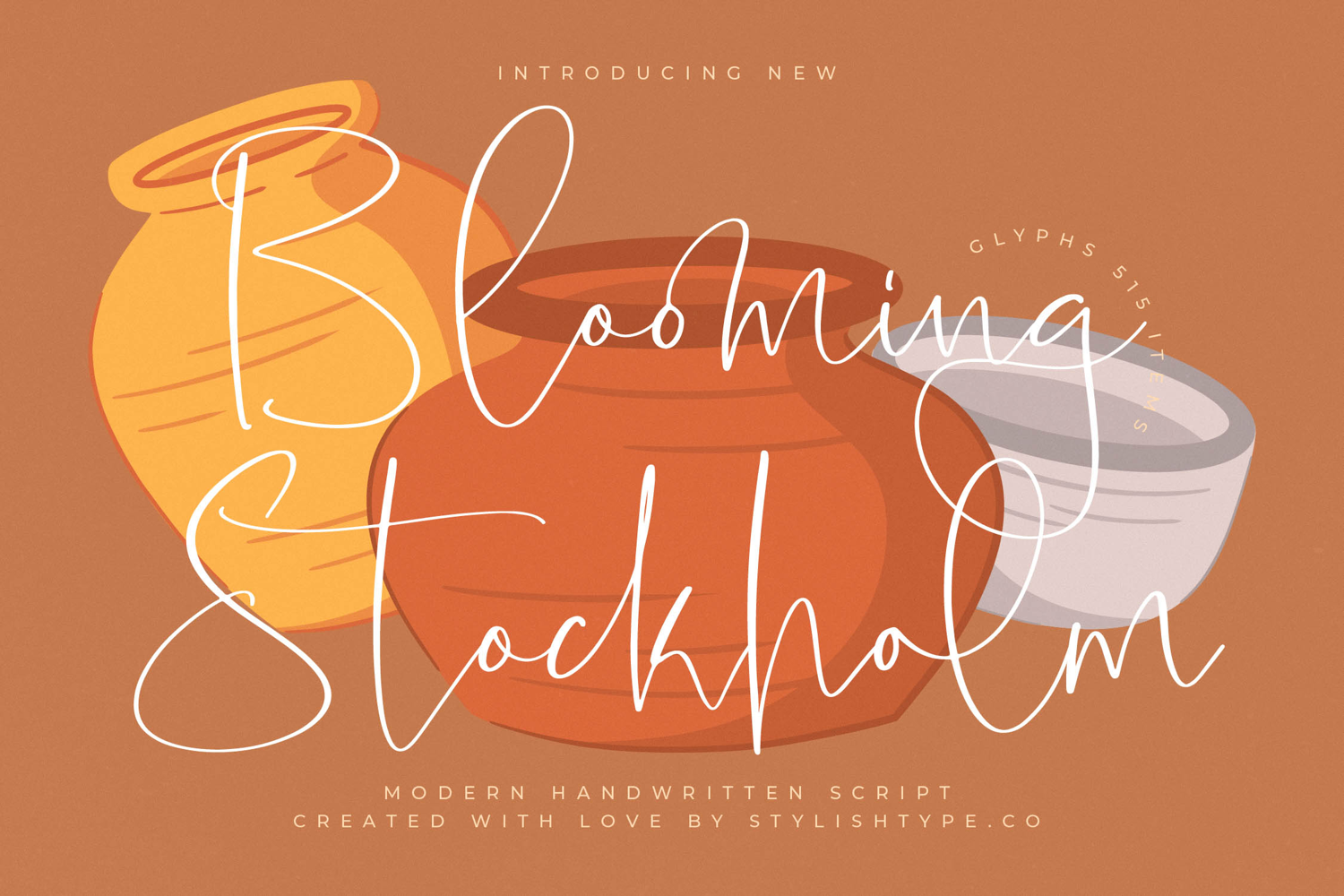
Blooming Stockholm - Modern Handwritten Script
is a modern handwritten script font designed with flowing strokes and elegant signature-style curves. Inspired by natural handwriting and contemporary calligraphy, this font brings a stylish and expressive look to modern typography.
The letterforms feature smooth curves and long sweeping strokes that create a graceful handwritten rhythm. Its organic flow gives the typography a soft and elegant appearance, making it ideal for modern creative projects and stylish design compositions.
Blooming Stockholm - Modern Handwritten Script
includes a large collection of glyphs, ligatures, alternates, and decorative swashes that allow designers to create unique lettering layouts and elegant typographic designs.